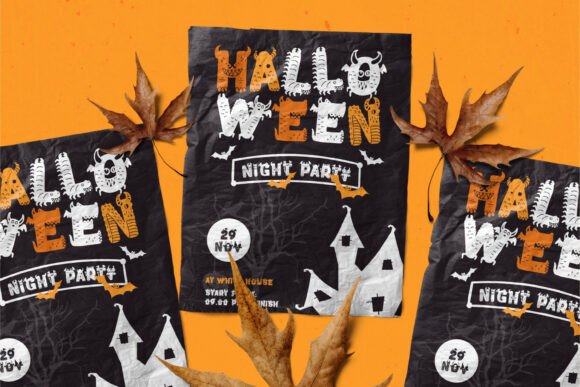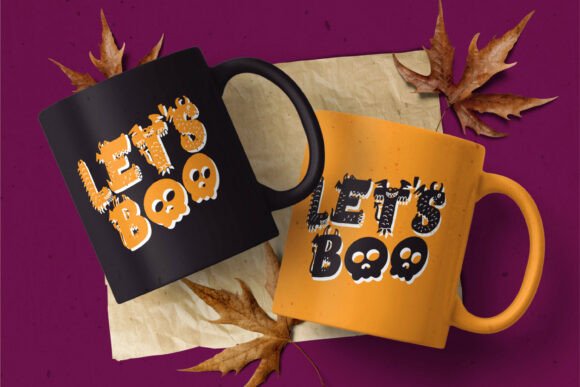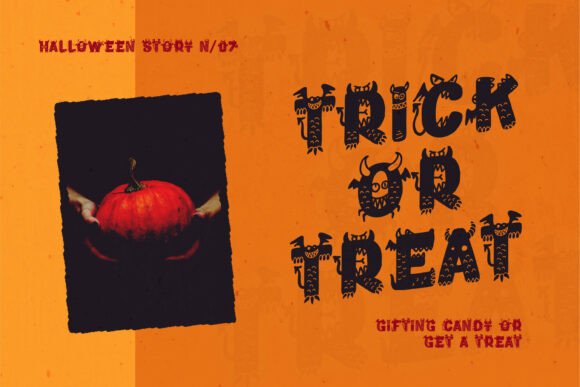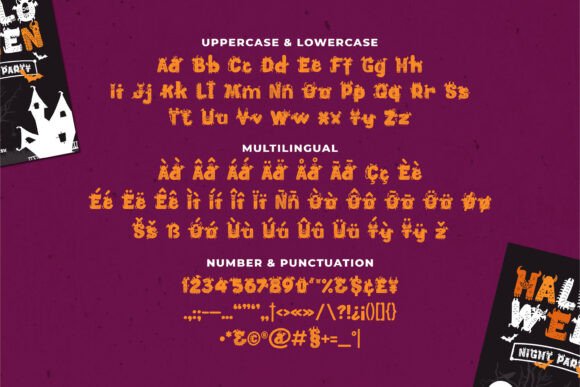
Hallocute Font: The Spookiest and Most Adorable Monster-Themed Typeface for Your Halloween Designs
Are you looking for a font that will add a touch of horror and dark whimsy to your monster or Halloween-themed designs? Look no further than the Hallocute Font! This playful, monster-themed typeface is full of spooky charm and quirky personality, making it perfect for a wide range of design projects. From spooky party invitations to haunted house posters, children’s books, monster-themed parties, toy packaging, and fun branding, Hallocute is the perfect choice for designers and crafters who want to add a little bit of scare and fun to their work.
The Unique Features of Hallocute Font
So, what makes Hallocute Font so special? For starters, each letter is dressed up with monster elements like eyeballs, horns, fangs, and tentacles, giving off a fun Halloween vibe that’s sure to delight both kids and adults. The letters themselves are thick, rounded, and black, with decorative details that resemble textures like scales, fur, and stitches. This unique combination of features gives Hallocute Font a one-of-a-kind look that’s both spooky and adorable.
Whether you’re a professional designer or a crafter looking for a fun and creative way to add some personality to your projects, Hallocute Font is a versatile typeface that can be used for a wide range of design projects. Here are just a few ideas to get you started:
- Spooky party invitations: Create eye-catching invitations for Halloween parties, monster-themed birthday parties, or other spooky celebrations.
- Haunted house posters: Design bold and eye-catching posters for haunted houses, haunted hayrides, or other spooky attractions.
- Children’s books: Add a touch of whimsy and fun to your children’s books with Hallocute Font’s playful and monster-themed letters.
- Monster-themed parties: Create fun and festive decorations, invitations, and other materials for monster-themed parties.
- Toy packaging: Add a touch of personality to your toy packaging with Hallocute Font’s unique and playful letters.
- Fun branding: Use Hallocute Font to create a fun and memorable brand identity for your business or product.
Why Choose Hallocute Font?
So, why choose Hallocute Font for your design projects? Here are just a few reasons:
- Unique and eye-catching: Hallocute Font is a one-of-a-kind typeface that’s sure to grab attention and add a touch of personality to your designs.
- Versatile: Hallocute Font can be used for a wide range of design projects, from spooky party invitations to fun branding.
- Fun and playful: Hallocute Font is a fun and playful typeface that’s sure to add a touch of whimsy and personality to your designs.
Whether you’re a seasoned designer or just starting out, Hallocute Font is a great addition to your font library. Its unique and playful design makes it perfect for a wide range of design projects, and its ease of use makes it accessible to designers and crafters of all skill levels. So why not give Hallocute Font a try and see how it can add a touch of personality and whimsy to your designs?